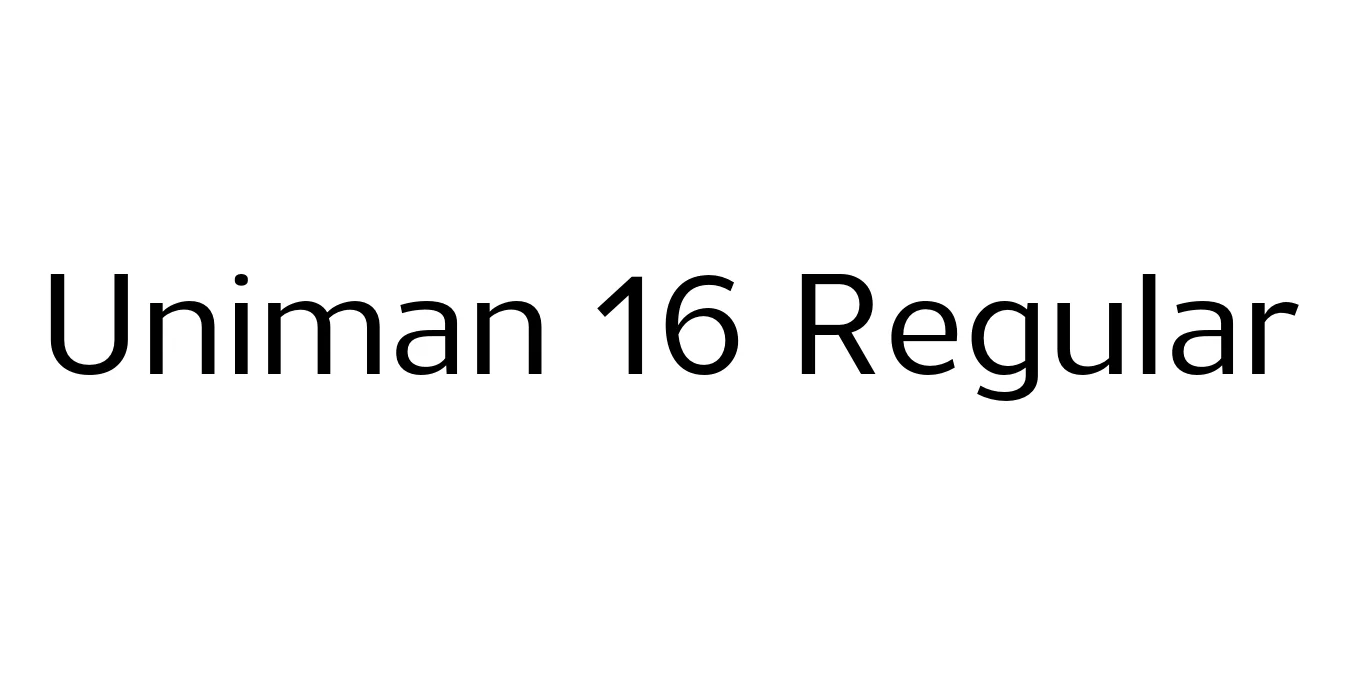
Uniman 16 Regular
Designed by Nadir Balcikli
Uniman 16 Regular is a sleek and modern sans-serif typeface designed by Nadir Balcikli. It belongs to the broader Uniman family, which is celebrated for its geometric precision and high legibility across digital interfaces. The '16' in the name refers to its optimized proportions for small to medium text sizes, making it a versatile choice for contemporary design projects that require a neutral yet professional aesthetic.
This typeface draws inspiration from humanist and grotesque styles, balancing rigid structures with subtle curves to ensure an approachable feel. Its clean lines and consistent stroke weights make it particularly effective for technical documentation, mobile applications, and minimalist branding. As a reliable workhorse font, Uniman 16 Regular excels in environments where clarity is the highest priority.
Uniman 16 Regular Best Uses
Perfect for clean and modern user interfaces.
Ideal for creating a professional and trustworthy brand identity.
Highly legible on small screens and high-resolution displays.
Excellent for dense text that requires clarity and precision.